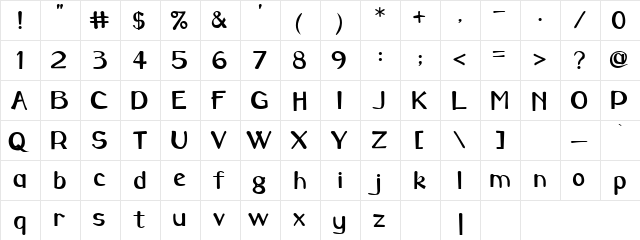
Laxness Normal Font Preview
Laxness Normal
Laxness Normal Font Details
Design Context for Laxness Typeface
Laxness takes a measured approach to typography — its balanced proportions and neutral character make it a reliable workhorse for both digital and print work.